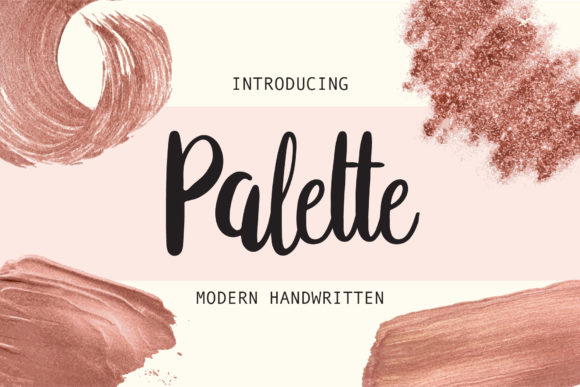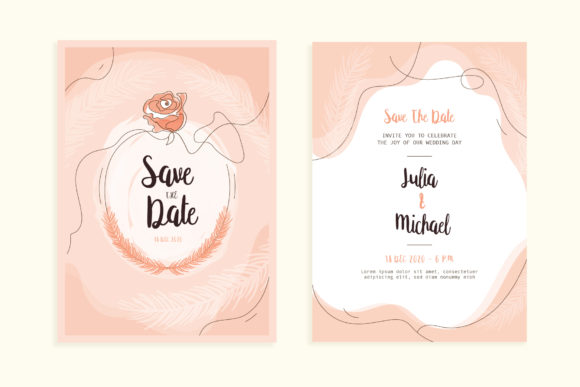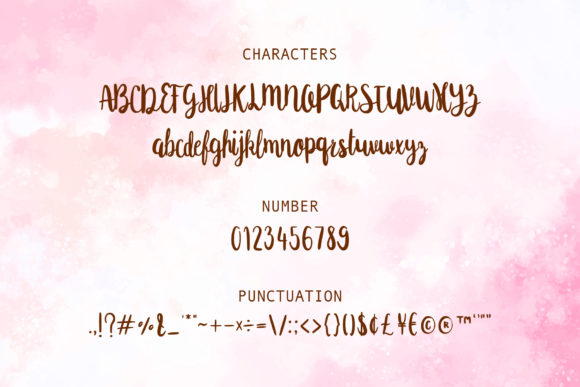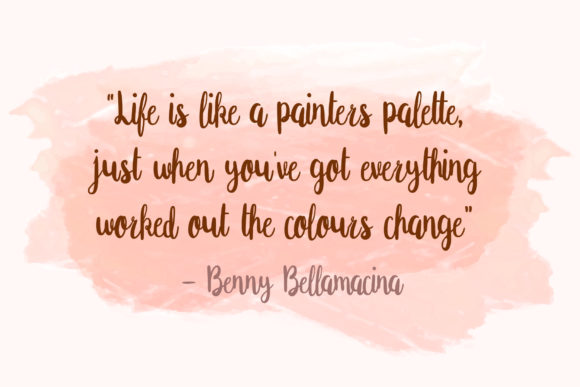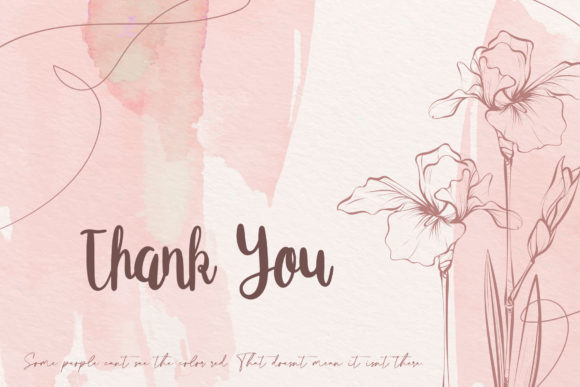
Palette Font
About Palette Font
Palette is a sweet, soft hand-lettered font. It features an incredibly classic style, while still keeping a friendly feel. Palette is the perfect font for making original and outstanding designs.